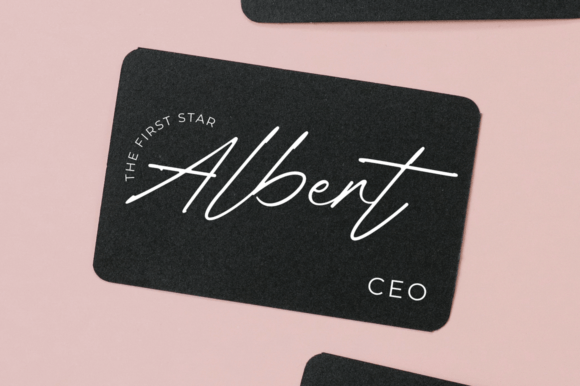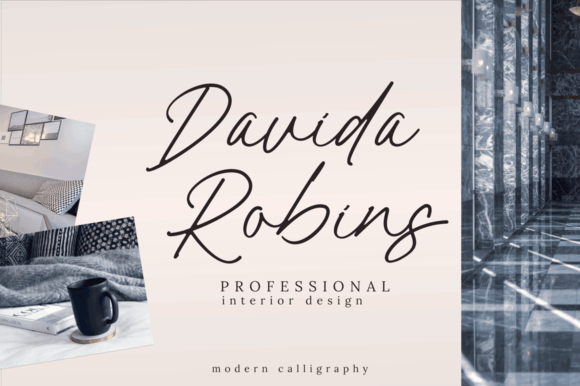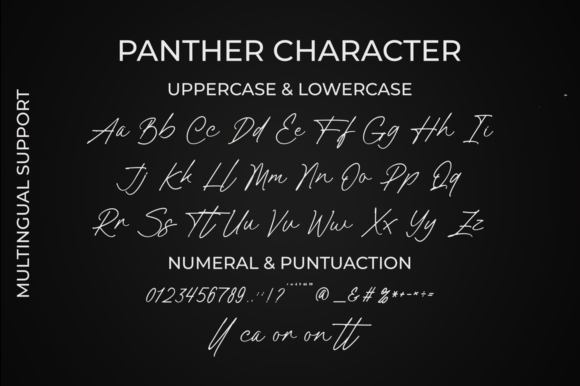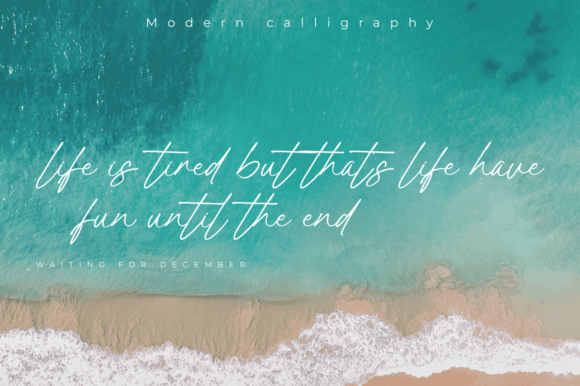
Panther Font
About Panther Font
Panther Font Download offers a delicate and beautifully cursive handwritten script designed to bring charm and warmth to your design work. With its soft strokes and romantic aesthetic, Panther is perfect for adding a joyful, personalized touch to everything from wedding invitations to lifestyle branding and handmade crafts.
This gentle typeface is ideal for creatives who want their designs to express elegance, sweetness, and sincerity without sacrificing readability or versatility.
A Romantic Handwritten Touch
Panther’s true strength lies in its ability to convey emotion. The flowing curves and soft connections between letters make your text feel like a handwritten note full of love and joy. It’s especially suited for:
• Wedding and event invitations
• Romantic greeting cards and notes
• Feminine logos and lifestyle branding
• Social media quotes and announcements
• Handmade crafts and DIY printables
Its natural handwriting style adds authenticity, while its graceful design keeps your work looking polished and professional.
The font includes a full set of uppercase and lowercase letters, numbers, punctuation, and multilingual characters. Whether you’re a hobbyist creating printables or a professional working on a client project, Panther will seamlessly integrate into your workflow.
Soft, Elegant, and Perfectly Versatile
Panther isn’t just pretty—it’s also highly adaptable. It works well across both digital and print formats, from Instagram graphics to custom packaging. The legibility of the script makes it suitable even for longer text, though it truly shines in headings and decorative use.
Pair it with a clean serif or sans-serif font for contrast, or let Panther stand alone to make a bold romantic statement. Either way, the result will be timeless and appealing.